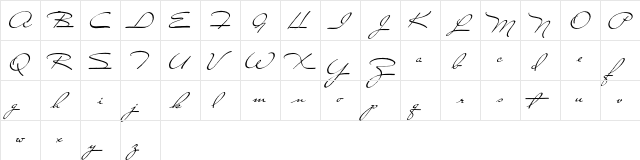
Close to You Regular
Design Context for Close to You Typeface
Close to You is a composed and adaptable typeface that performs quietly and consistently across a wide range of design contexts.